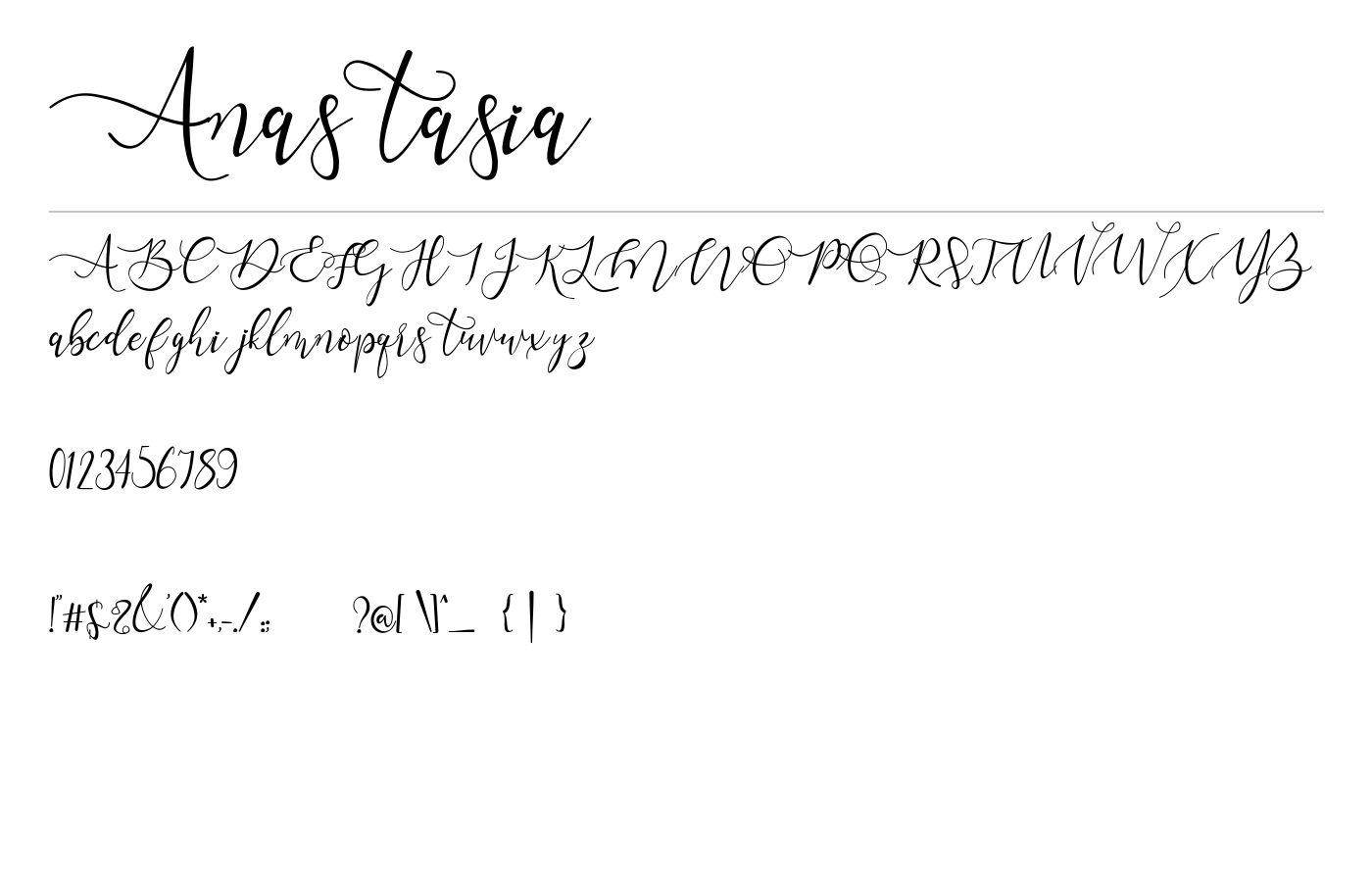
Anastasia Font is an elegant script typeface with flowing, delicate lines and graceful swashes that create a refined and sophisticated look. Its thin strokes and fluid, calligraphic style make it perfect for luxury branding, wedding invitations, and feminine editorial projects that seek a romantic and stylish vibe. This font shines best in large sizes for logos, headlines, and decorative text where its ornate details can truly stand out.
Anastasia Font
About Anastasia Font
| Font family | Anastasia Font |